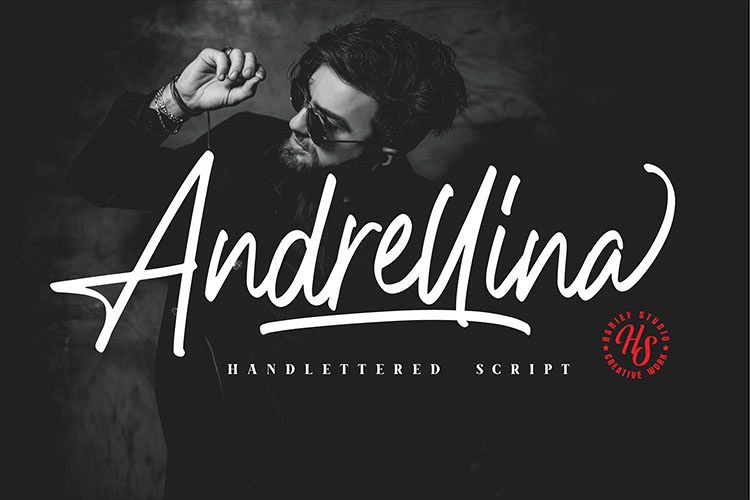
Andrellina Signature
Andrellina Swash
Andrellina
Andrellina Signature font, every single letter has been carefully crafted to make your text look beautiful. With a modern script style this font will be perfect for many different projects ex: photography, watermark, quotes, web design, blog header, poster, wedding, branding, logo, fashion, apparel, letter, invitation, stationery, etc.FEATURES:
• Containing upper & lowercase characters, full set of punctuation and numerals, with opentype features with stylistic style and ligatures.
• An broader version of the font for a Andrellina Signature different feel.